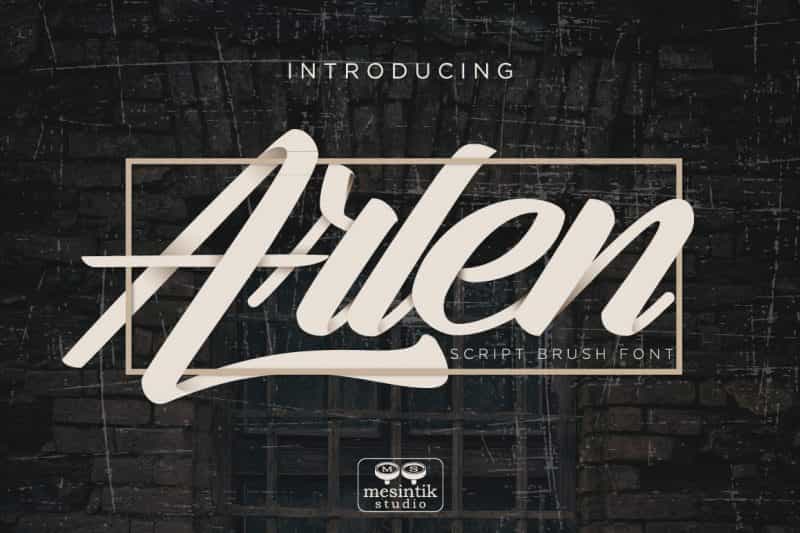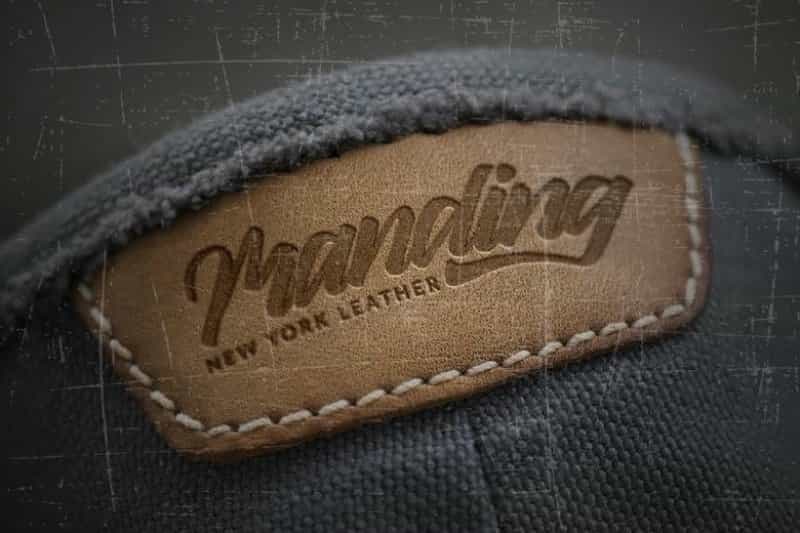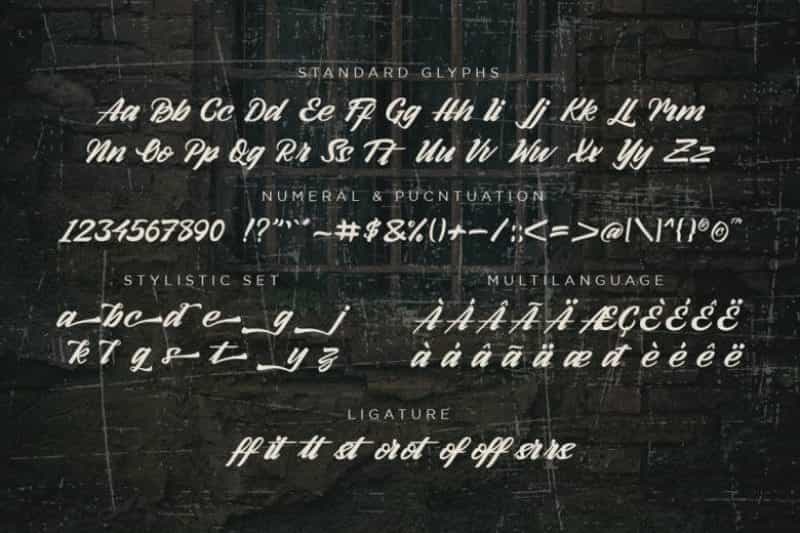
Arlen Script is a clean script brush font. It’s great to use for book covers, logos, signatures, wedding designs, product packaging, special events, and many more!